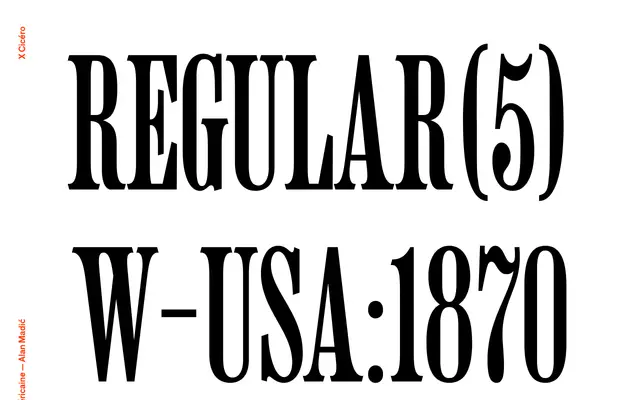
Américaine
X Cicéro · 1870
A revival of 19th-century American wood type in a single Roman weight, drawn from Hamilton wood type sources circa 1870.
Taking cues from Hamilton wood type of the 1870s, Américaine recalls the bold display letterforms used in American poster printing of the period. A single Roman weight is offered, keeping the family tightly focused on headline and display use. The labelling as 'Modern' on the specimen page situates it within the stylistic conventions of that era rather than the typographic classification of the same name.
The page references Hamilton wood type from 1870s America and labels it 'Modern', pointing to a revival of 19th-century American wood type display letterforms typical of poster and headline printing.